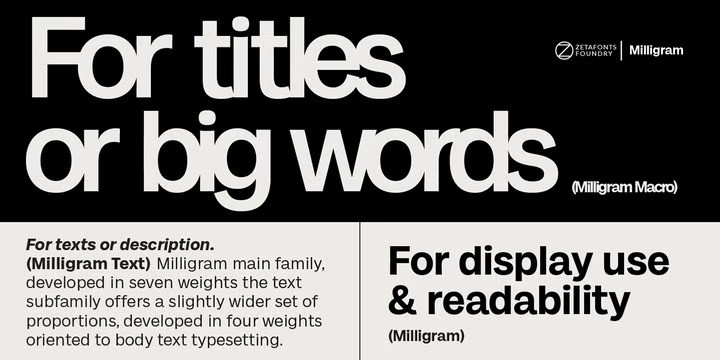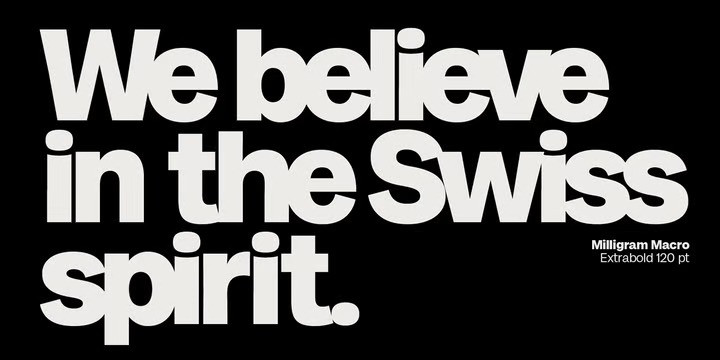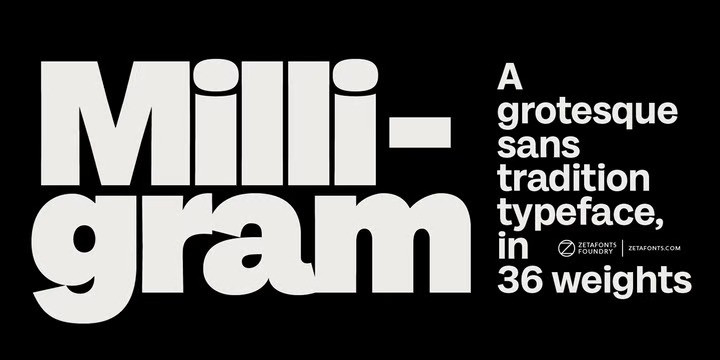
Milligram Font
Milligram Sans Serif Font, Designed by Cosimo Lorenzo Pancini with Andrea Tartarelli, Milligram is a fine but bold homage to the Akzidenz Grotesk that never was.
Grotesque sans typefaces: you know you won’t ever get tired of those. And any moment you decide that Vignelli was right and one Swiss font is enough, here comes a new specimen from the past inviting you to try new takes on the modernist letterforms. It’s a tight and crowded design space, so design decisions are subtle and almost unnoticeable. Whoever you decide to be in the details – either God or the Devil – you surely need a taste for the infinitesimal to work with these shapes. Time design borders sandstoning shapes, in a delicate equilibrium between modernist precise ideals and the fascinating energy of old lead grotesques. The resulting typeface develops around an idiosyncratic relationship with negative space, inspired by the tight metrics modernist designers imposed on their layouts. Leaving a text optimised spacing to the text subfamily, Milligram plays with a feeling of attraction behind shapes, something brought to the extremes in the logo-oriented Milligram Macro Variant.
– Suggested uses: Milligram is a versatile type family: perfect for modern branding and logo design (Milligram Macro), for text and editorial design (Milligram Text), web design, packaging and countless other projects;
– 36 styles: 7 weights + 7 italics x 3 different styles + 2 variable fonts;
– 759 glyphs in each weight;